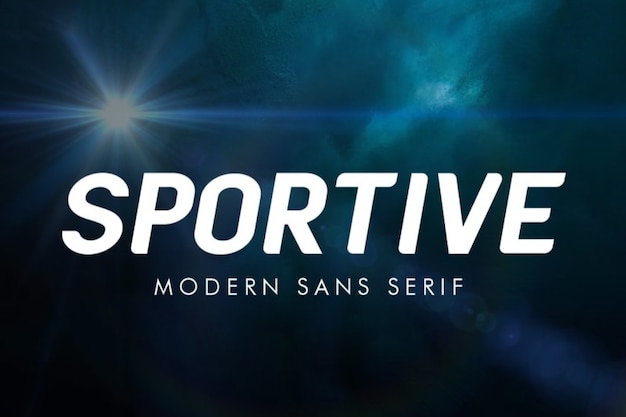
Sportive Font
Get ready to add some sporty flair to your designs with Sportive, a modern sans-serif font that is inspired by the world of sports. Its clean and modern design ensures that it remains legible at any size, while its bold style adds a touch of excitement and enthusiasm to your design projects, from sports team logos and apparel to advertising and editorial design. Download it now!